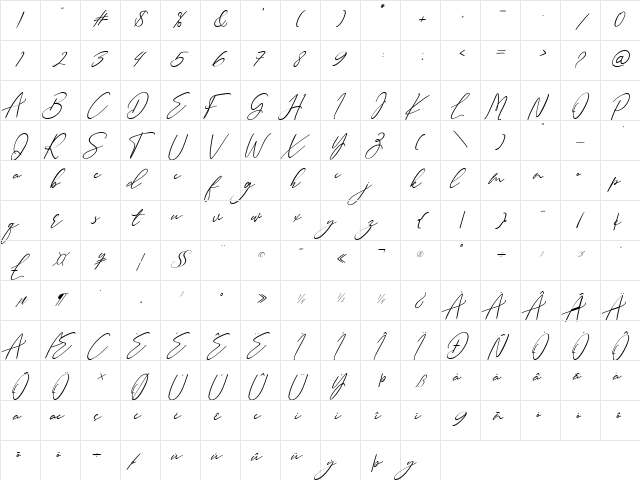
Sottalica Regular
| Foundry | Mightype |
| Designer | Munawir |
Design Context for Sottalica Typeface
Sottalica is a composed and adaptable typeface that performs quietly and consistently across a wide range of design contexts.